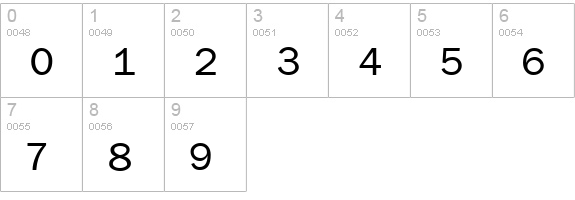
Frankfurt Regular is the standard, neutral variant in the Frankfurt typeface family \xE2\x80\x94 well suited to general body text, paragraphs, and standard typographic work.
Frankfurt Regular is a versatile and modern font that exudes sophistication and readability. With clean lines and a timeless aesthetic, this typeface is perfect for a wide range of design projects, from branding to editorial layouts. Its balanced proportions and classic letterforms make it a go-to choice for designers looking to add a touch of elegance to their work. What sets Frankfurt Regular apart is not just its design, but also the fact that it is completely free to download at FontsMarket.com. This means that you can access this high-quality font without any cost, making it an incredibly valuable resource for any designer. Whether you're working on a personal project or a client commission, Frankfurt Regular is sure to elevate your designs with its refined style and professional appeal. Download it today and see the difference it can make in your next project.